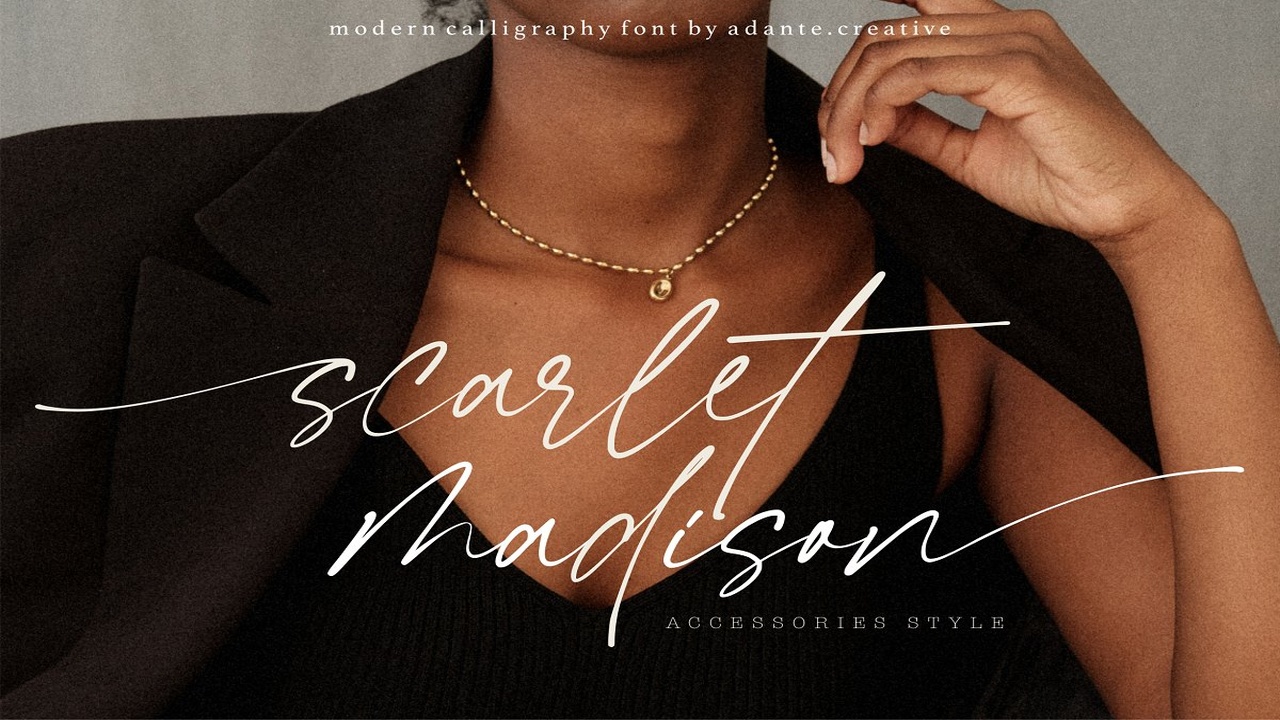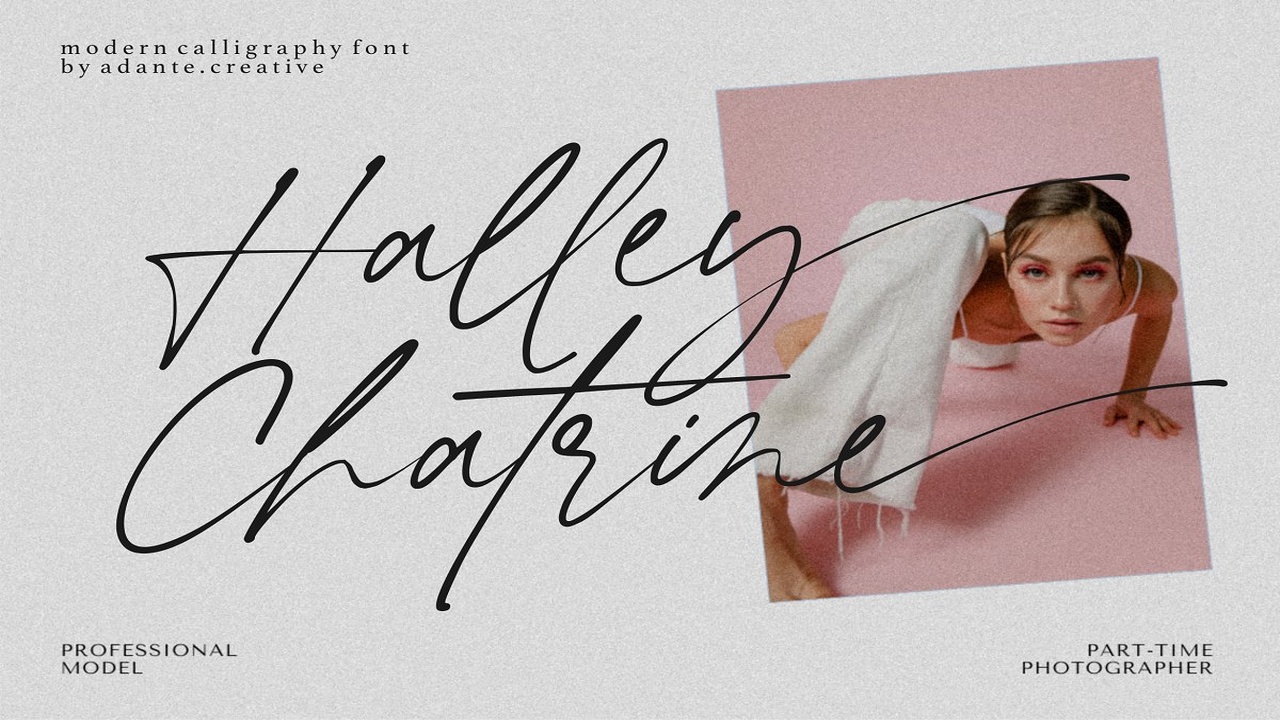
About the Shortblack Font
Introducing by Adante, CreativeProudly Present, Shortblack is A Modern Calligraphy FontShortblack is perfect for product packaging, branding project, megazine, social media, wedding, or just used to express words above the background, This font includes OTF&TTF&Woff, Shortblack also multilingual support, Enjoy the font, feel free to comment or feedback, send me PM or email